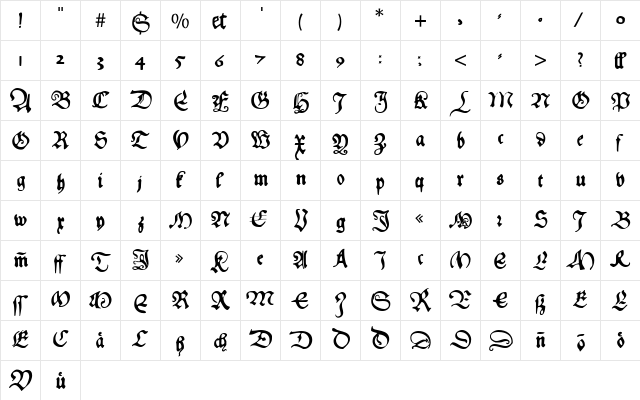
HansFraktur Regular
Design Context for HansFraktur Typeface
HansFraktur channels the dramatic heritage of Fraktur and Gothic scripts, bringing a sense of historical gravitas to any design.
A natural fit for music packaging, gothic editorial design, and any project that needs historical weight.
Font Pairing: Pair with a clean neutral sans-serif for body copy to let HansFraktur's character lead without overwhelming the composition.
Pro Tip: Reserve HansFraktur for display and logo use — pair it with a clean sans-serif for body copy to prevent the composition from feeling oppressive.